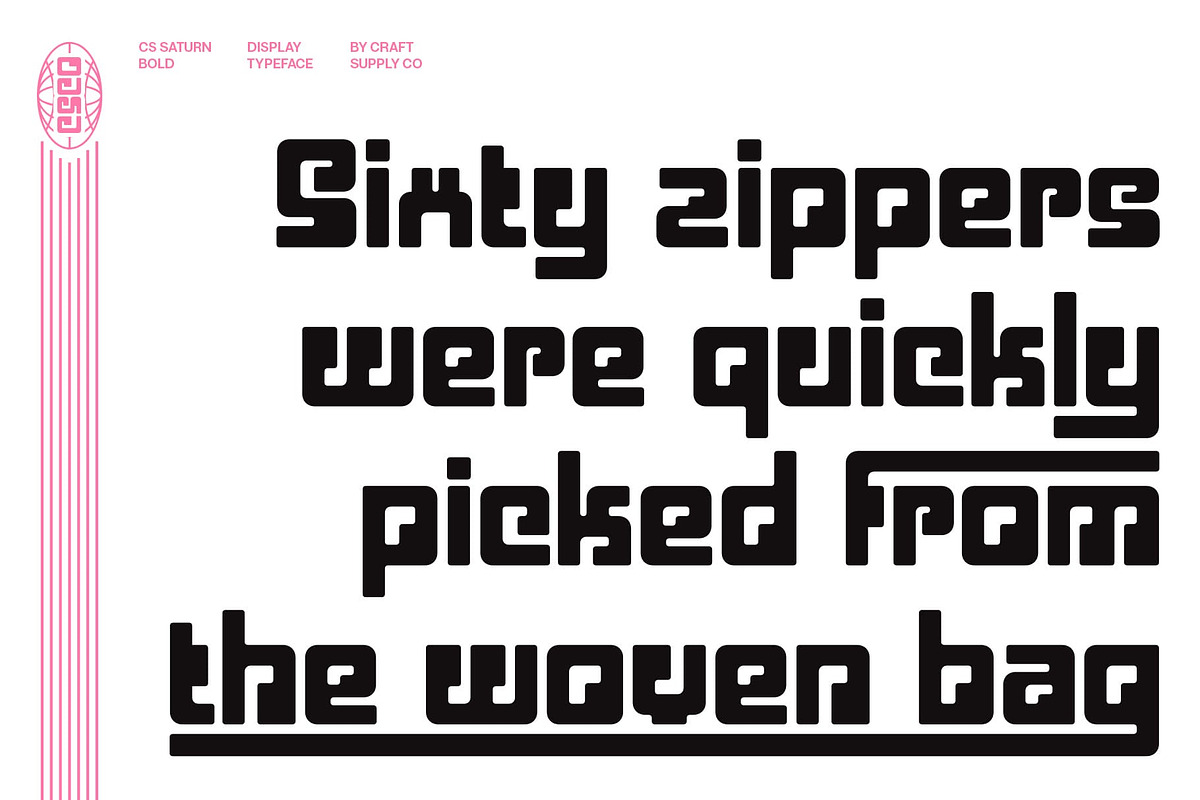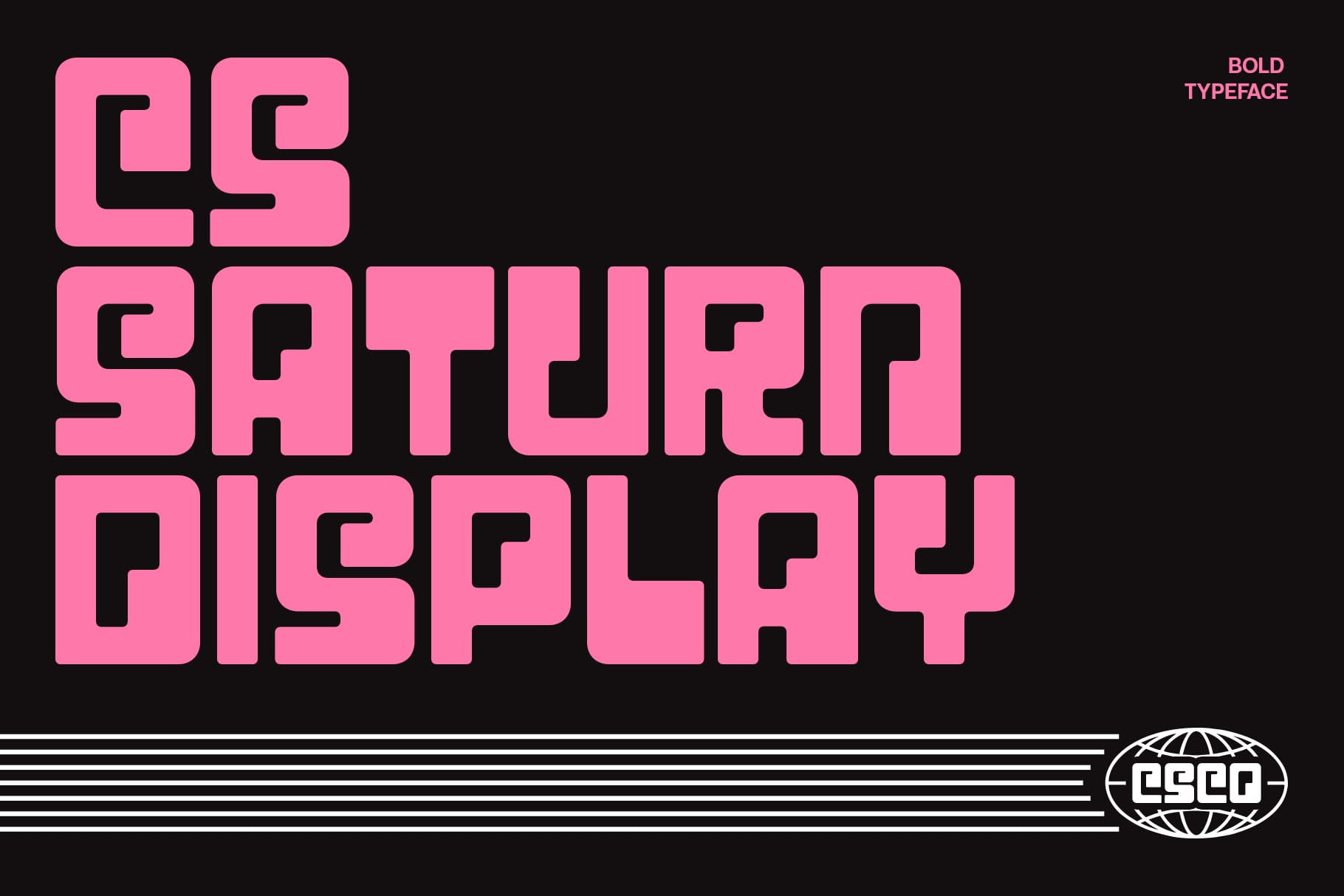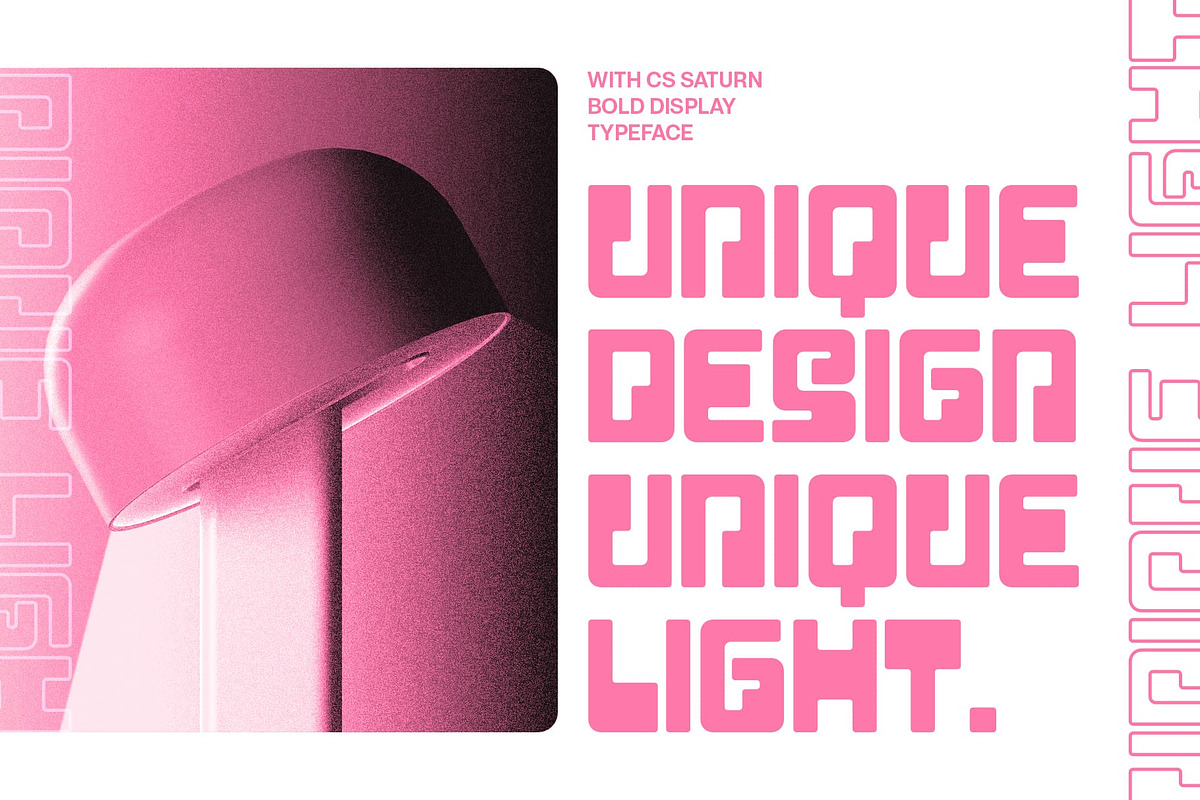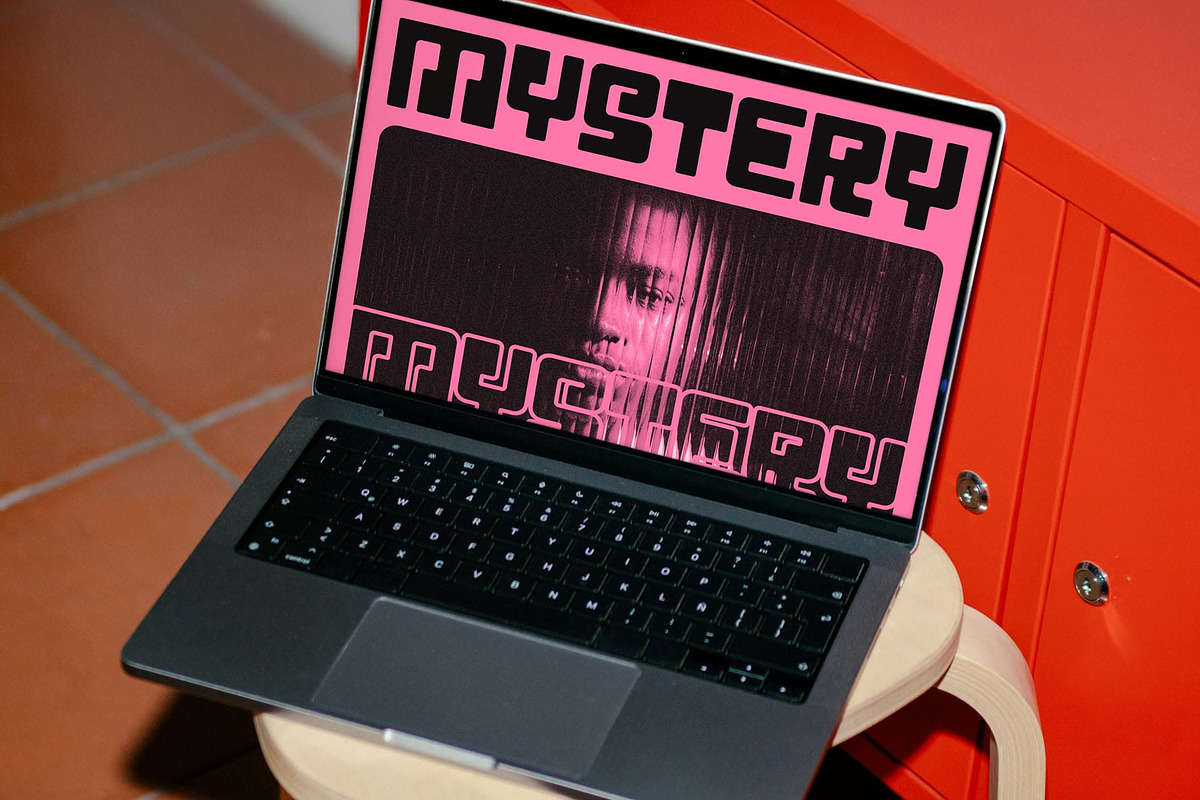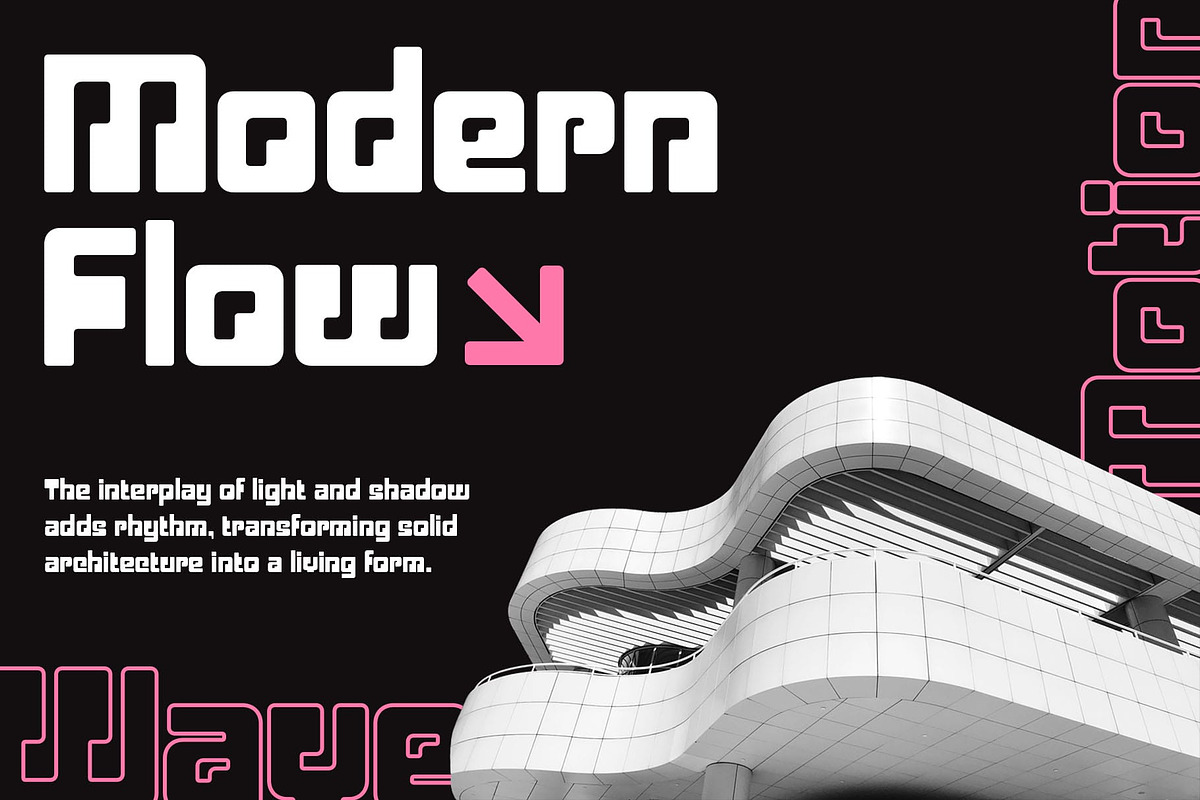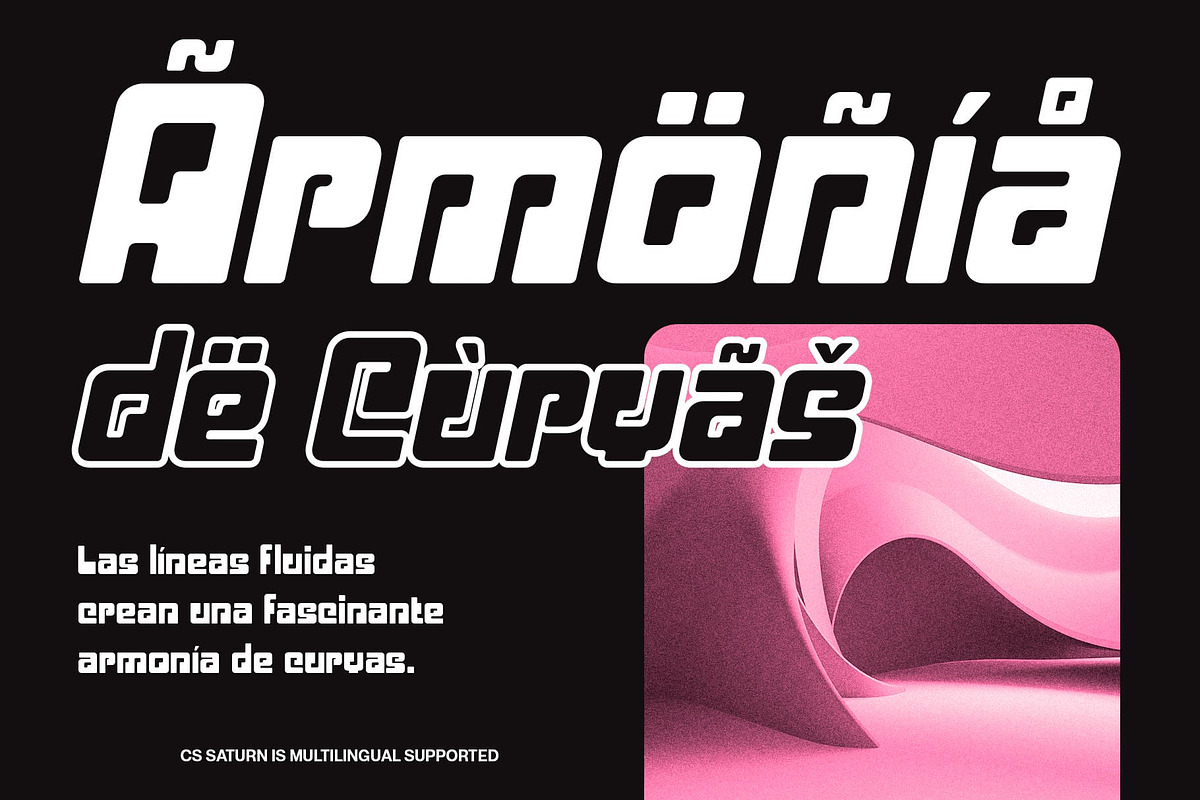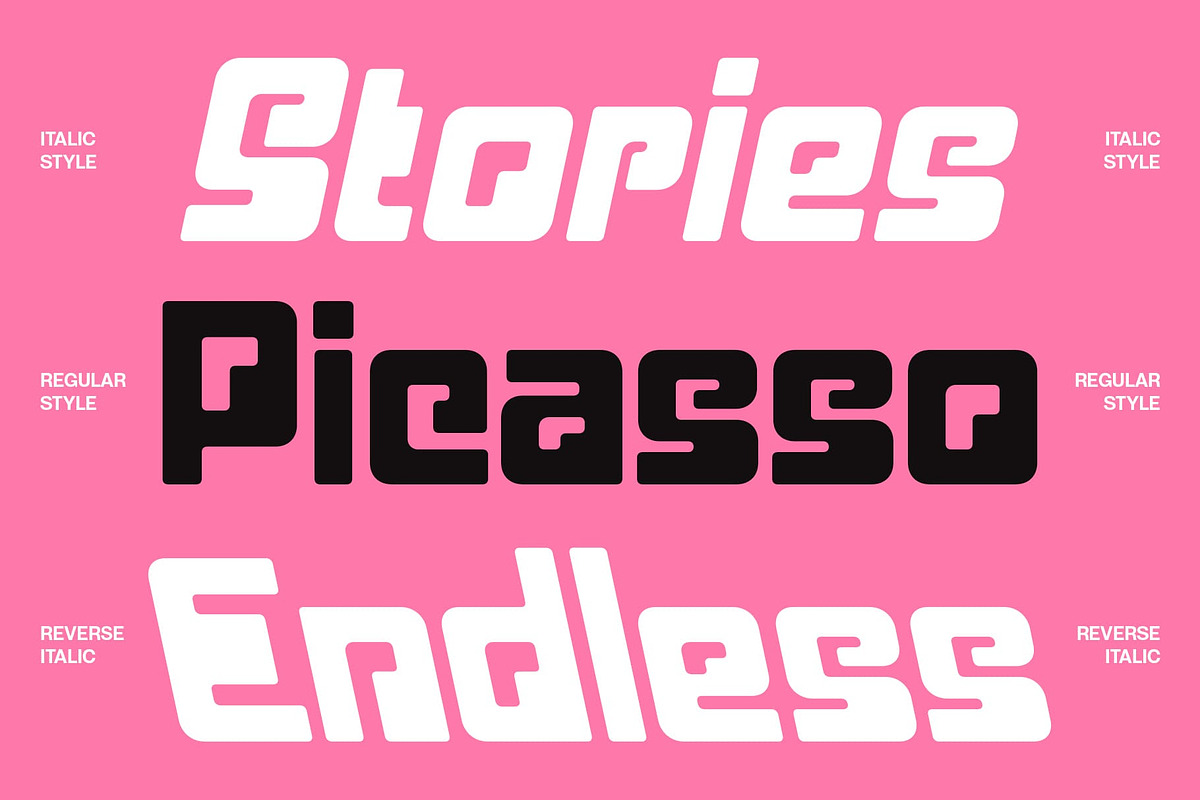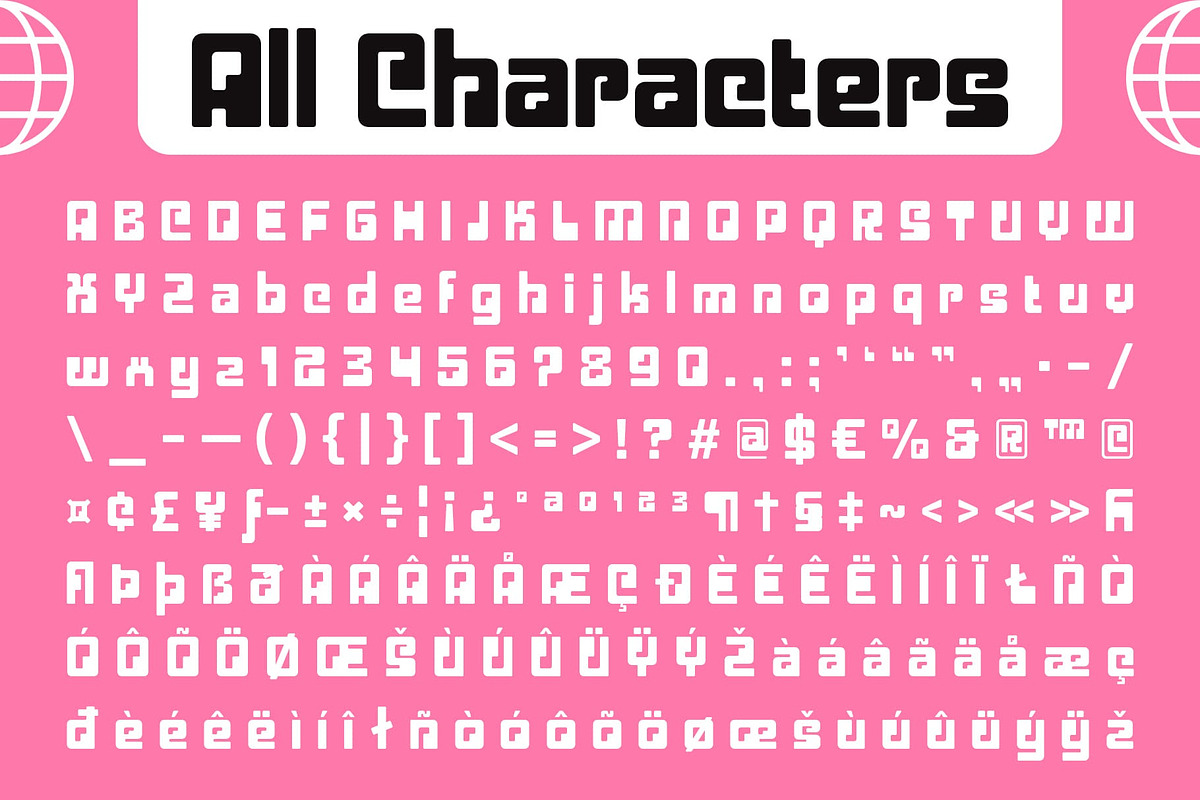
CS Saturn – Bold Display Font
CS Saturn – Bold Display Font : Blocky Tech Font with Bold Presence
Futuristic Design with Strong Character CS Saturn is a bold display font that embodies the essence of futuristic typography. With its sharp edges and blocky corners, it creates a sense of technological sophistication, making it the perfect choice for forward-looking and innovative design projects.
Bold and Striking Appearance The thick, structured lines of CS Saturn command attention, delivering a strong and confident impression. Its bold geometry ensures that every word stands out, making it highly effective for impactful headlines, logos, and poster layouts.
Perfect for Tech-Inspired Visuals Designed with technology and modern aesthetics in mind, CS Saturn excels in projects such as digital advertising, futuristic posters, music visuals, and branding for tech products. Its style captures the energy of innovation and progress.
Versatile for Modern Branding Beyond its futuristic edge, CS Saturn adapts well to a range of creative uses. From editorial layouts to event graphics, its bold form ensures clarity and presence, helping brands and designs establish a strong, modern identity.
- CS Saturn Regular
- CS Saturn Italic
- CS Saturn Reverse Italic